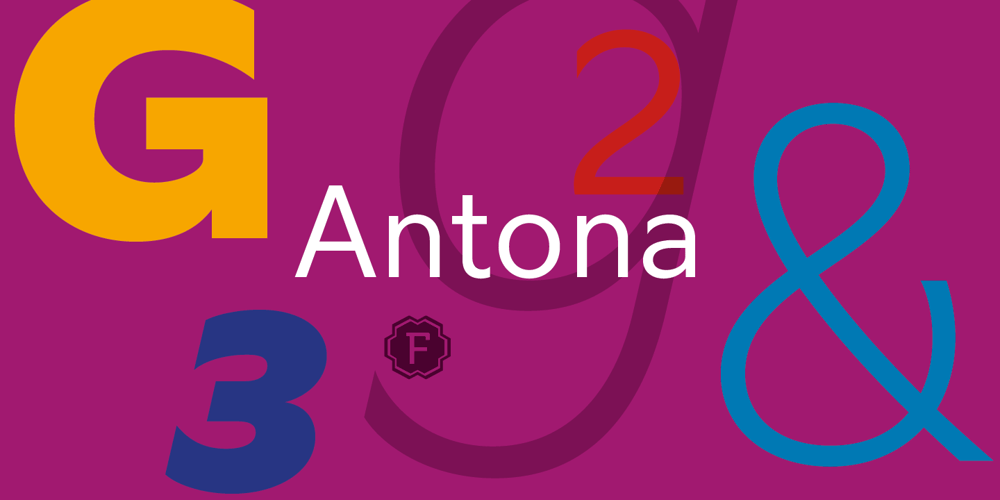
Antona
Antona font
Antona Font Family was designed by Jos Buivenga and published by exljbris. Antona contains 16 styles and family package options. Antona is a modern, friendly geometric sans serif. It comes in eight weights, with italics, 16 fonts in total.